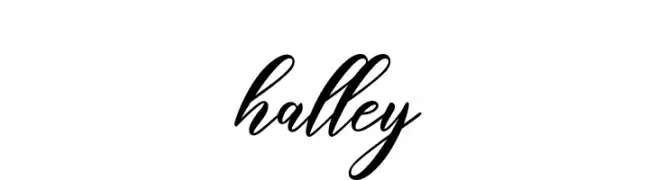
An elegant script font with flowing, decorative swashes and intricate loops.
A romantic, cursive font with elegant, flowing lines and ornate details.
An elegant script font with flowing, ornate characters and decorative flourishes.
A cursive, handwritten-style font with elegant loops and a sophisticated appearance.
A graceful script font with flowing, interconnected letters and ornate flourishes.
A graceful and sophisticated script font with flowing, cursive letters.
An elegant script font with flowing, cursive letterforms.
An elegant script font with intricate loops and decorative flourishes.
An elegant script font with flowing, interconnected letters and high contrast strokes.
An elegant script font with flowing, cursive letterforms and a sophisticated style.